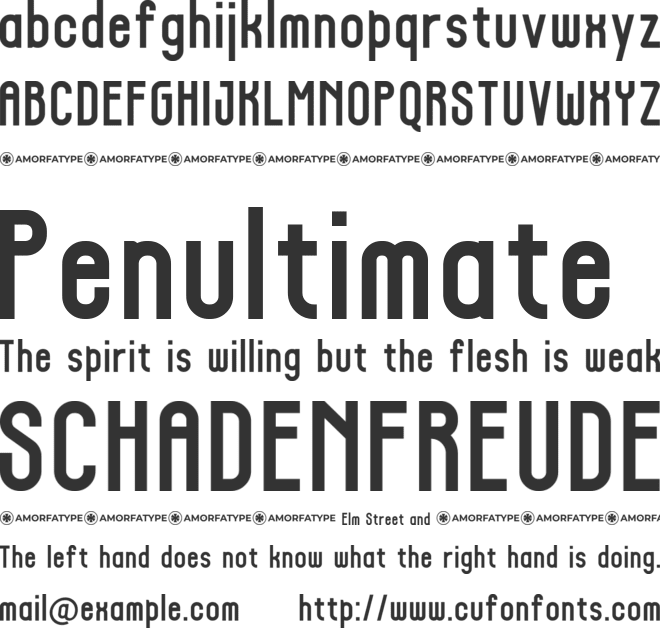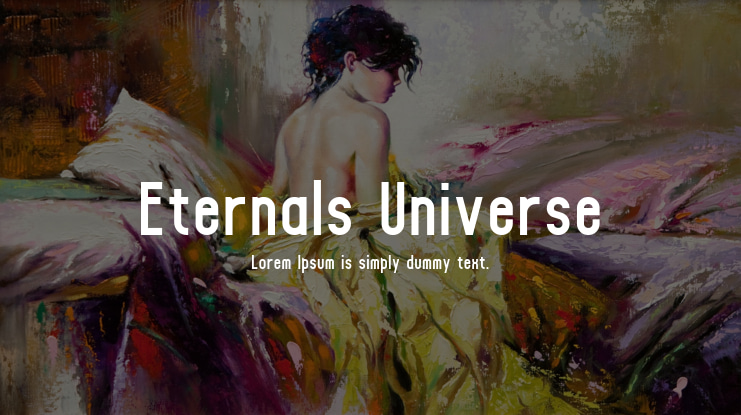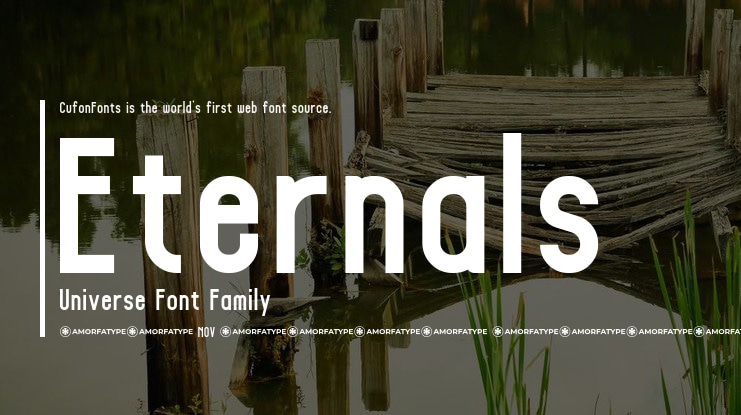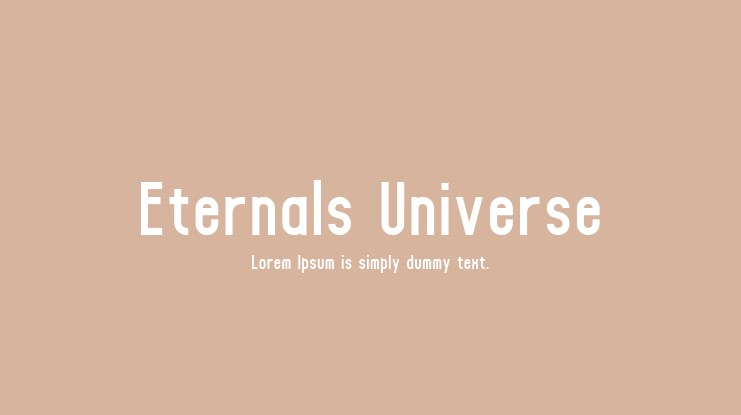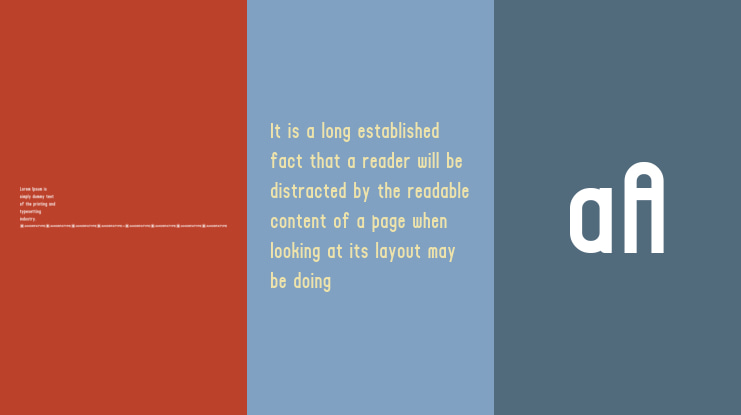
Eternals Universe Font
**Eternals Universe: A Modern Alternate Sans Serif Font by Amorfatype**
Eternals Universe captures the essence of modern minimalism with a hint of cosmic flair. This unique sans serif font features clean lines and geometric shapes, creating a contemporary and versatile visual impact. Each character is carefully crafted to ensure clarity and readability while preserving its innovative aesthetic. Ideal for a diverse range of applications—from futuristic branding and tech-centric projects to sleek editorial designs—Eternals Universe adds a modern and sophisticated touch to your creations. Elevate your work with this dynamic font, bringing a distinctive and polished edge to every project.